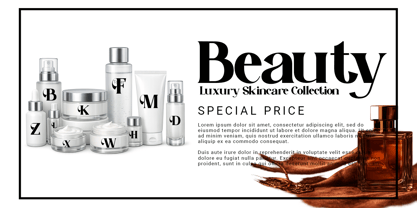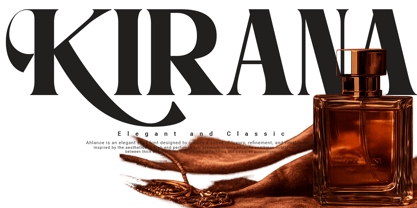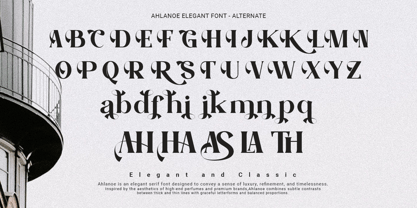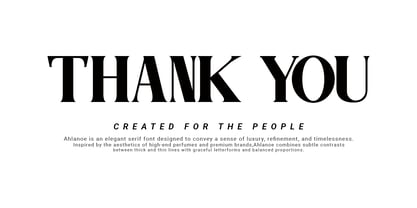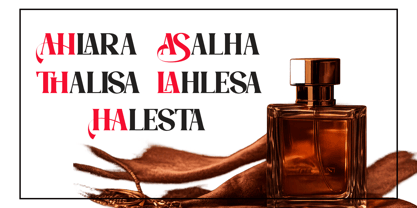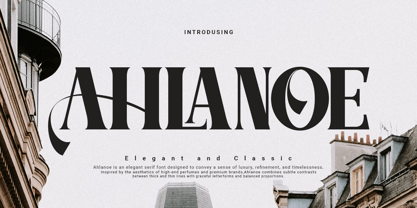
Ahlanoe
Die Schriftfamilie Ahlanoe wurde von Agung Sudirman entworfen und von Agung Sudirman veröffentlicht. Ahlanoe enthält 2 Stile und Familienpaketoptionen. Mehr über diese Familie
Ahlanoe is an elegant serif typeface that blends classic sophistication with modern refinement, featuring graceful letterforms, balanced proportions, sharp serifs, and luxurious details that create a timeless visual identity perfect for branding, editorial design, fashion, beauty products, wedding invitations, premium packaging, logos, and high-end creative projects that aim to convey professionalism, exclusivity, charm, and artistic excellence while maintaining exceptional legibility and aesthetic appeal in print and digital media.